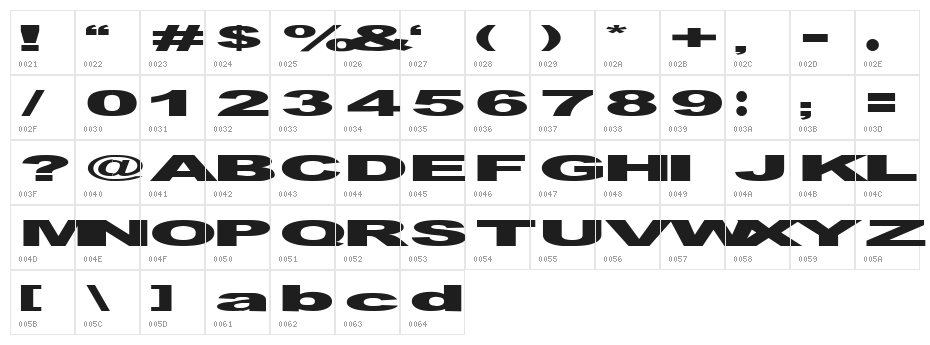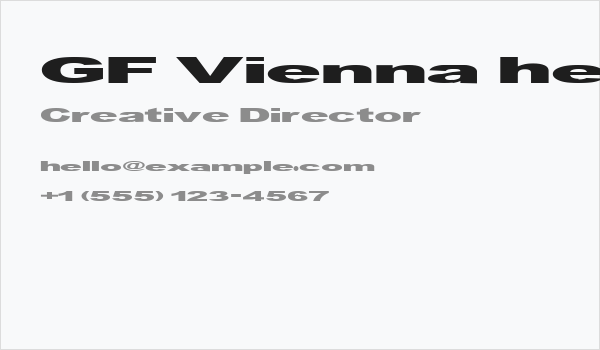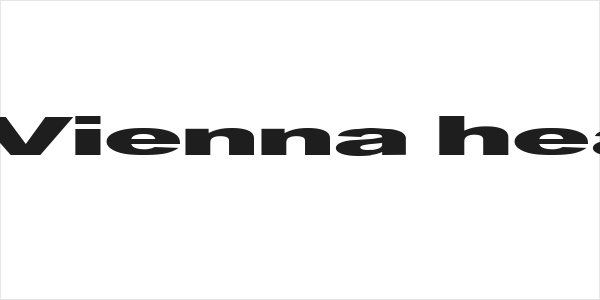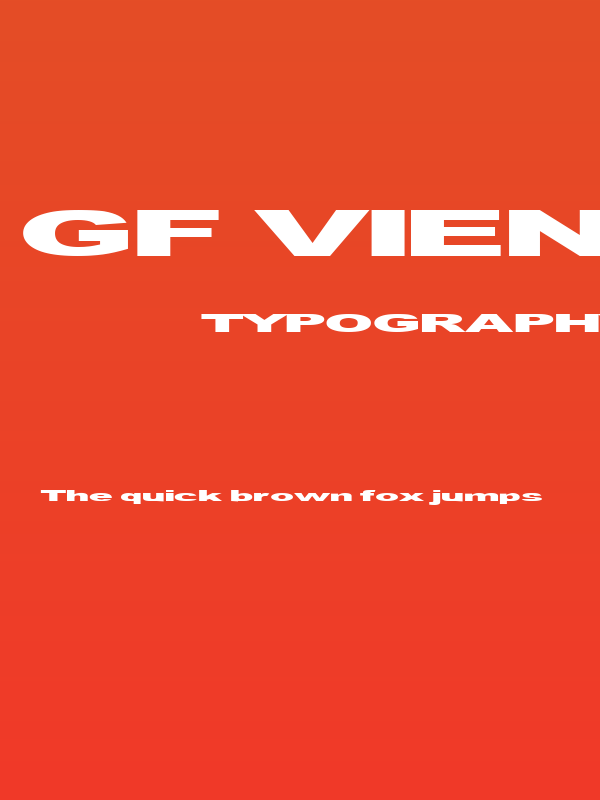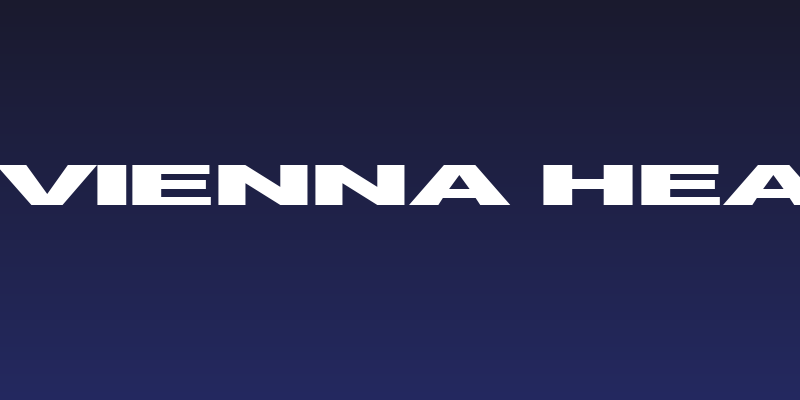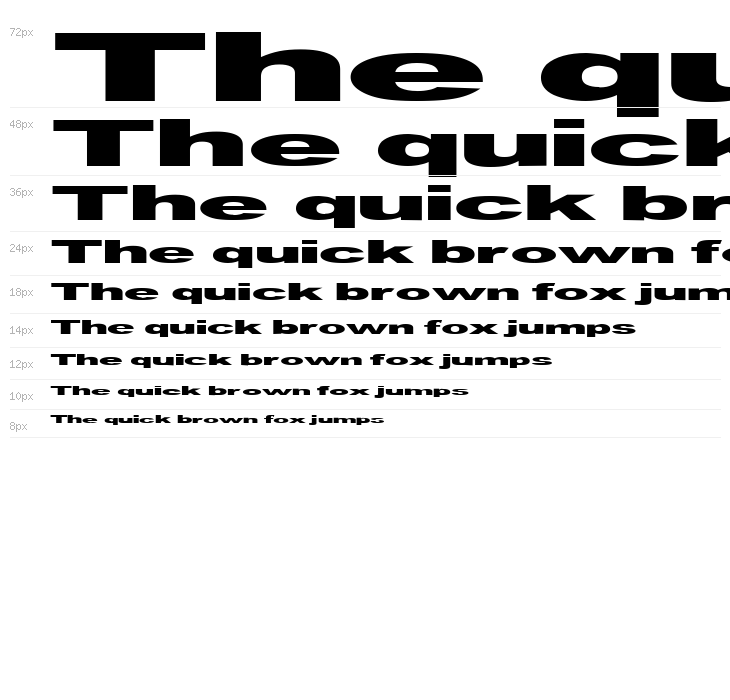
GF Vienna heavy Font
GF Vienna heavy Description
This font exhibits a bold and robust style with thick, heavy strokes that convey a strong presence. The characters are uniformly wide, providing a sense of stability and power. The uppercase letters are particularly striking, with a blocky appearance that emphasizes their boldness. The lowercase letters maintain the same weight and width, ensuring consistency across the typeface. The numbers are equally bold, making them stand out clearly. Special characters are designed with the same heavy strokes, ensuring they match the overall aesthetic. This font is ideal for situations where a strong, impactful statement is needed.
Proposed ProjectsIdeal for headlines, posters, branding, and any design requiring a bold statement.